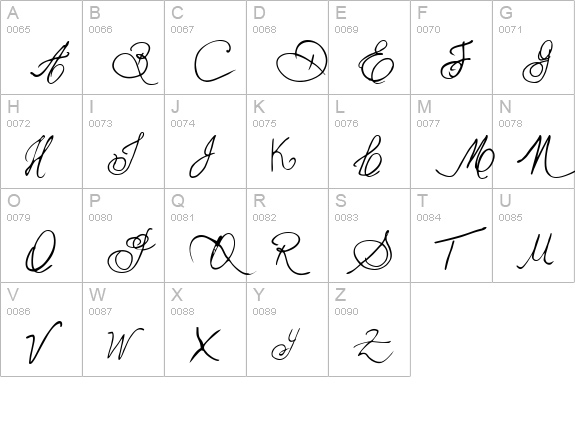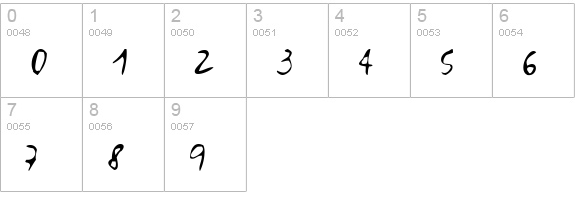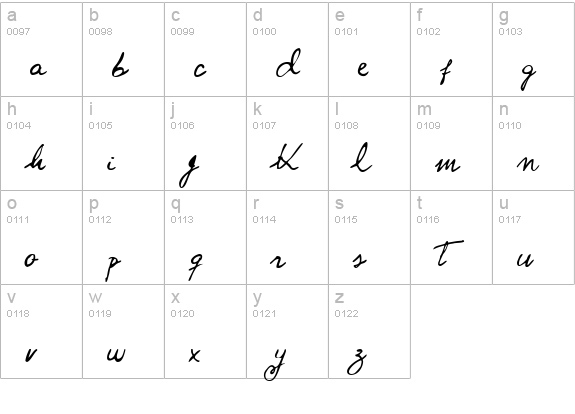
Paulinho Pedra Azul Normal is the standard, neutral variant in the Paulinho typeface family \xE2\x80\x94 well suited to general body text, paragraphs, and standard typographic work.
Paulinho Pedra Azul Normal font is a beautifully crafted typeface that exudes elegance and sophistication. Its clean and modern design makes it perfect for a wide range of projects, from branding and advertising to social media graphics and website design. With its smooth curves and balanced letterforms, Paulinho Pedra Azul Normal font is both eye-catching and easy to read. Whether used in headlines or body text, this font will add a touch of professionalism to any project. One of the best things about Paulinho Pedra Azul Normal font is that it is freely available to download at FontsMarket.com. This means that you can enhance your designs without breaking the bank. Whether you are a professional designer or a hobbyist, this font is a valuable addition to your typographic arsenal. So why wait? Download Paulinho Pedra Azul Normal font for free today and start creating stunning designs that are sure to leave a lasting impression.